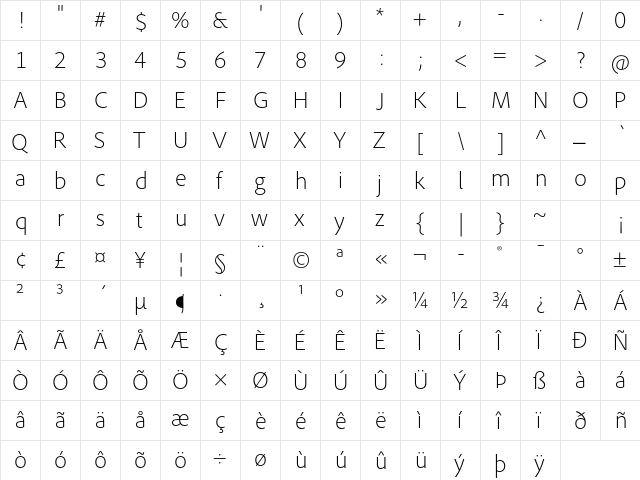
Adobe Clean Light Regular
| Designer | Robert Slimbach |
Design Context for Adobe Clean Light Typeface
Adobe Clean Light is a composed and adaptable typeface that performs quietly and consistently across a wide range of design contexts. Its slender proportions lend an understated elegance to any composition.
Pro Tip: Use Adobe Clean Light in both headline and body roles to test its range before committing to a single application.